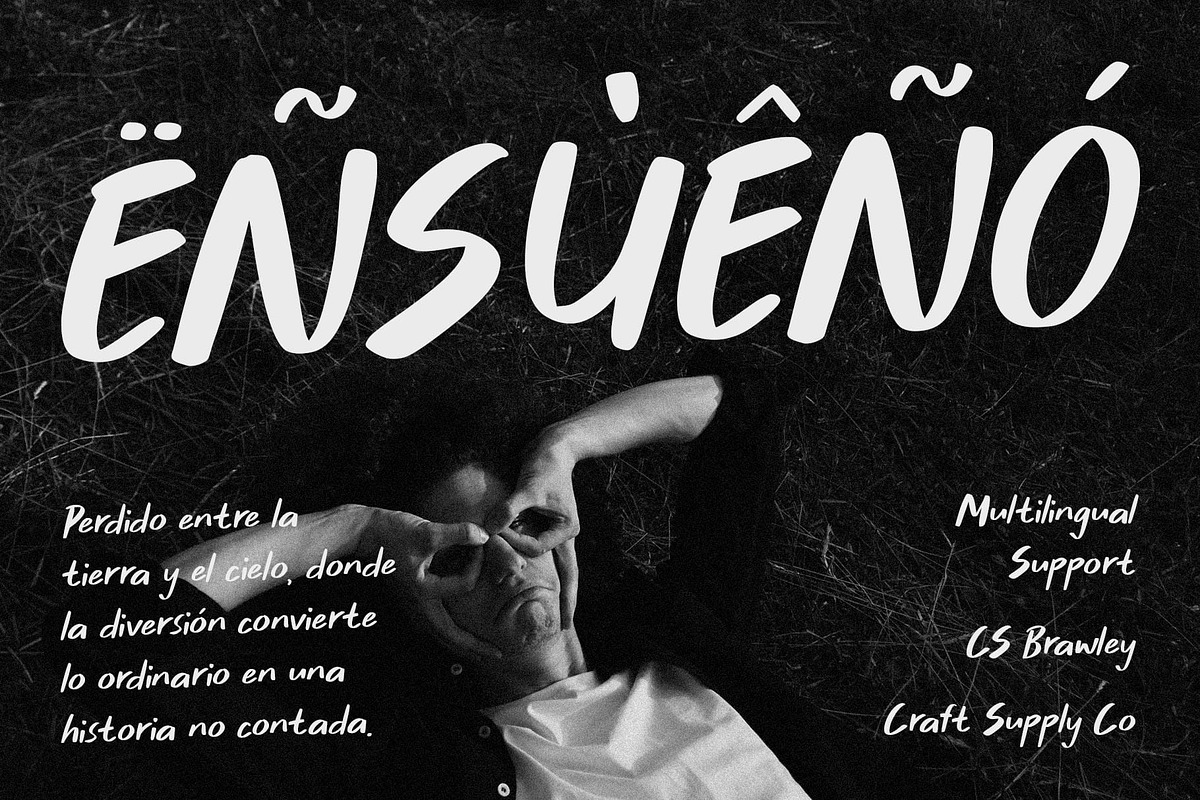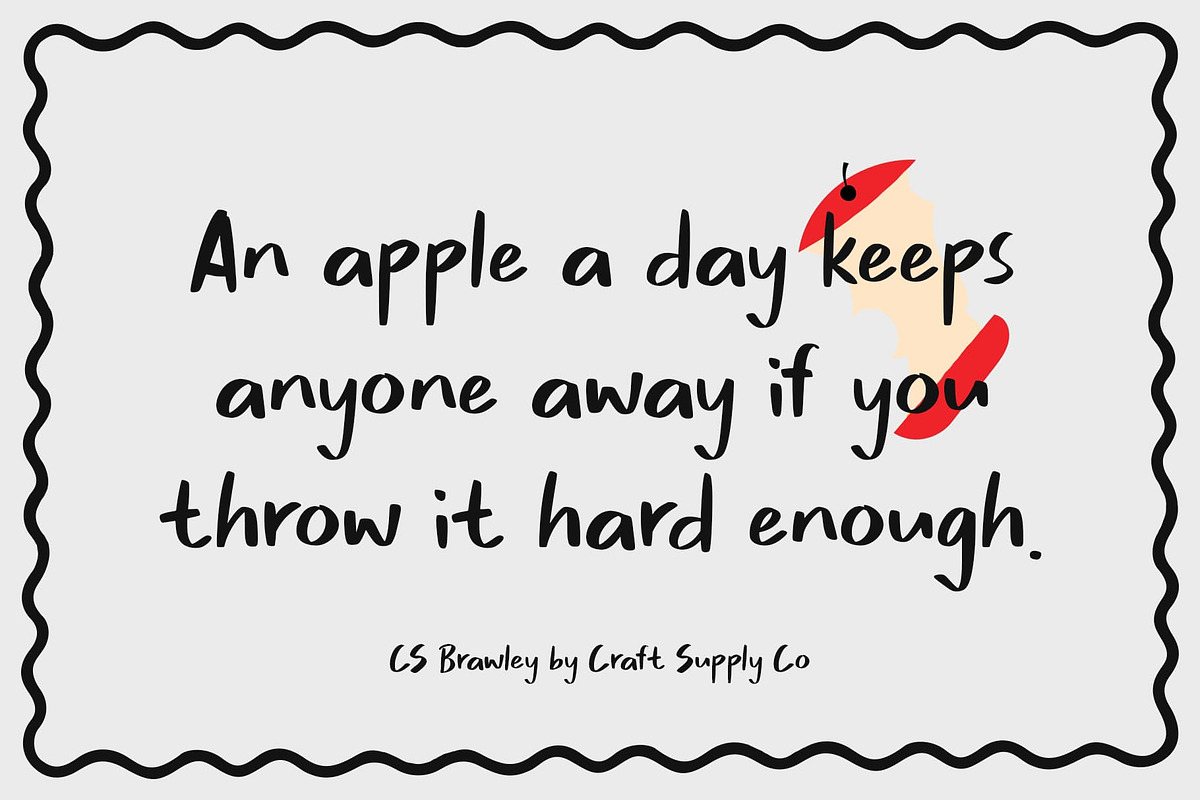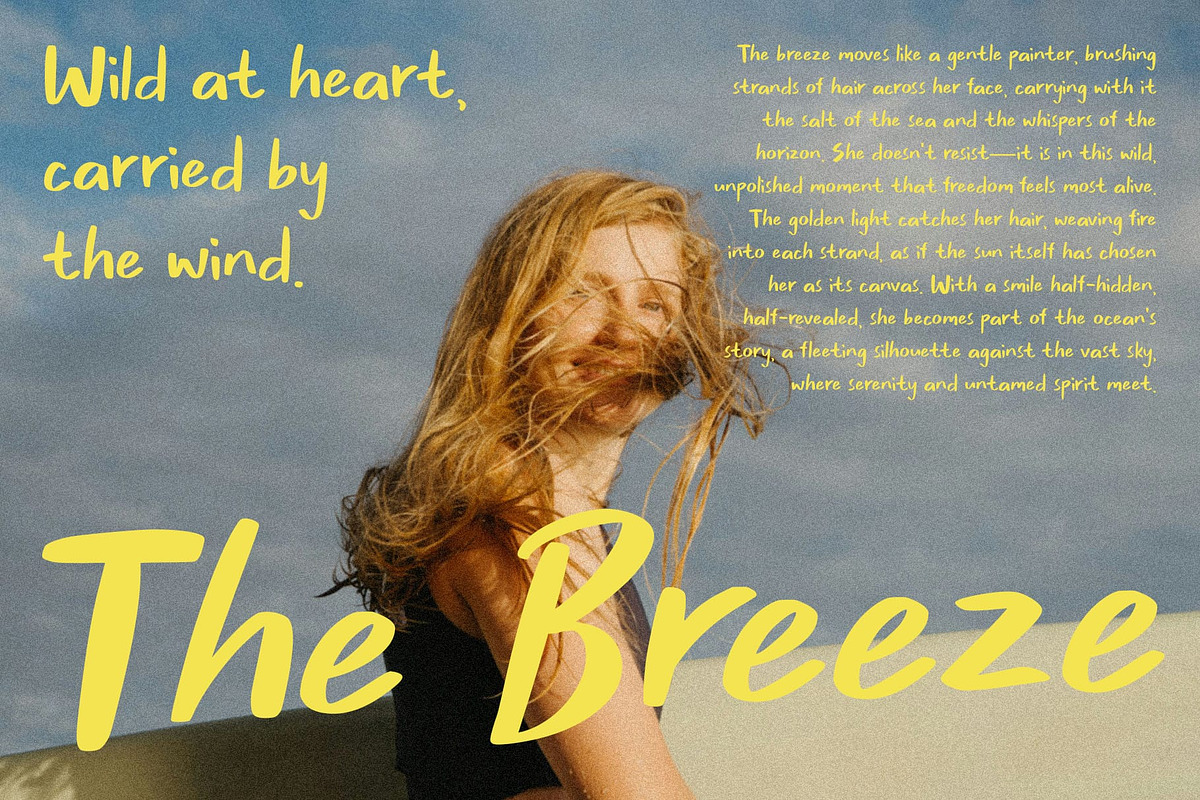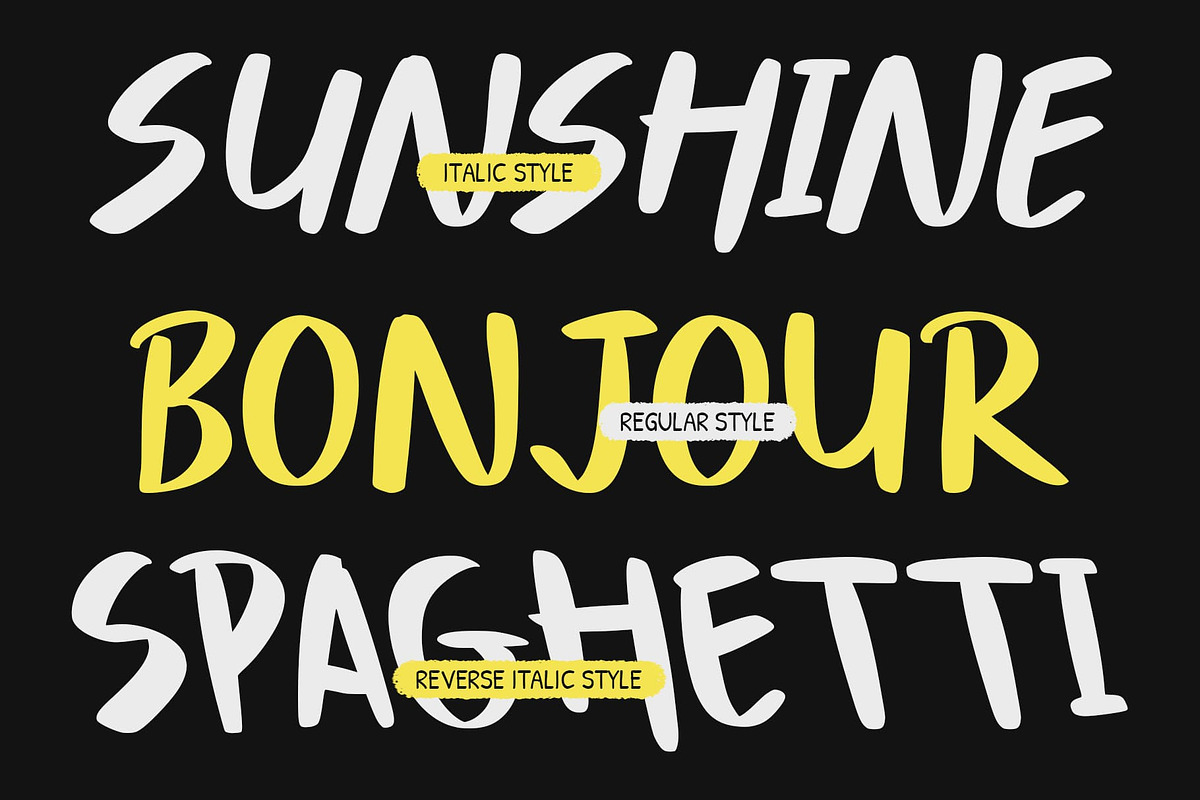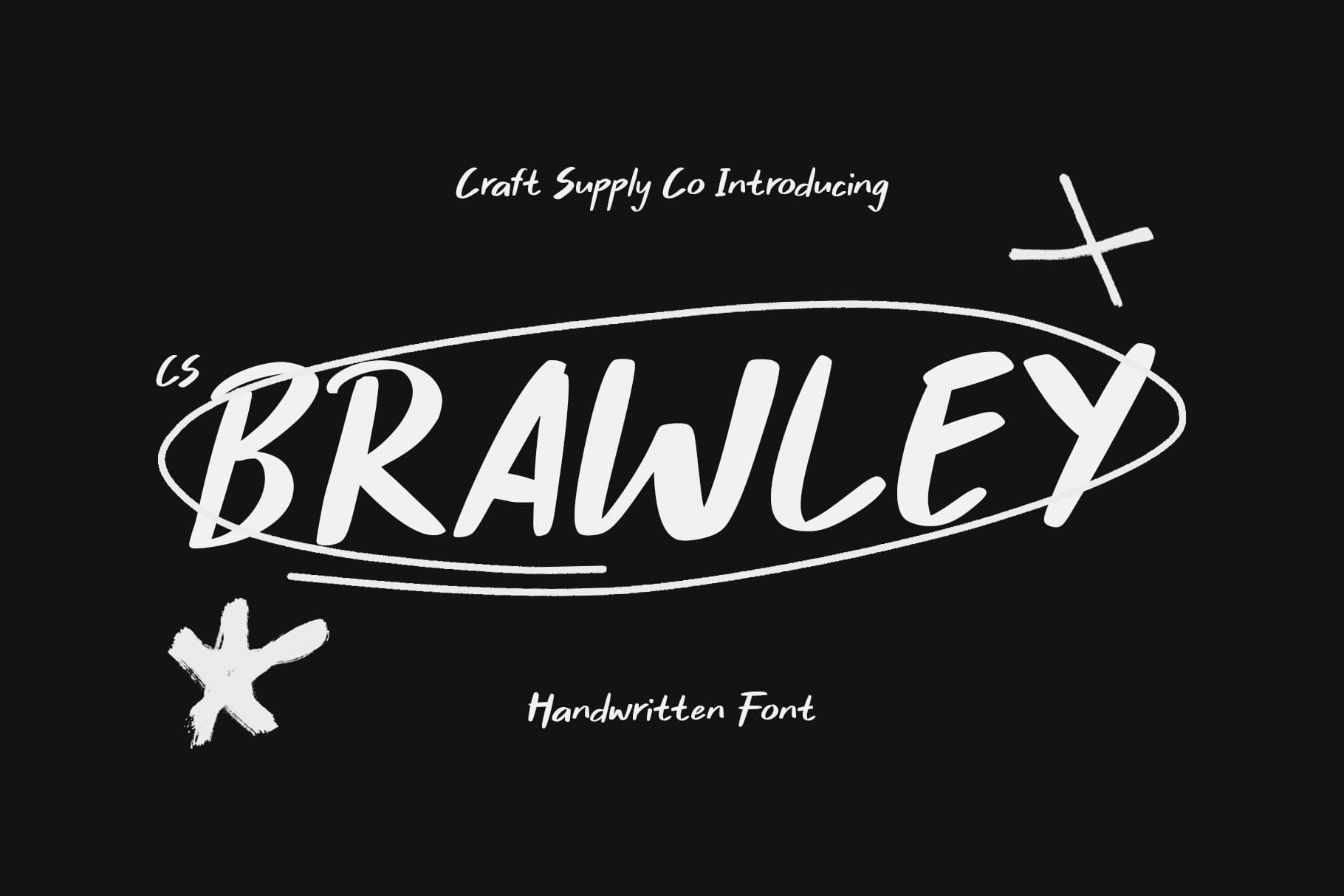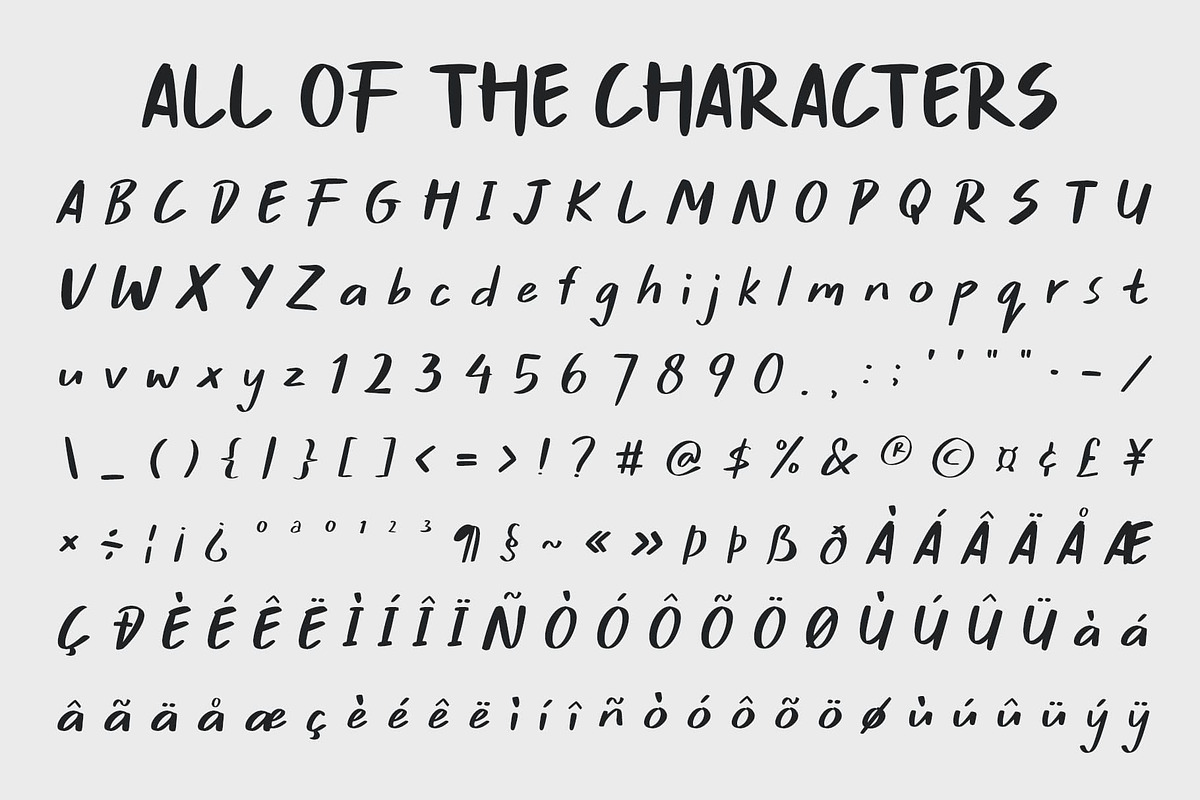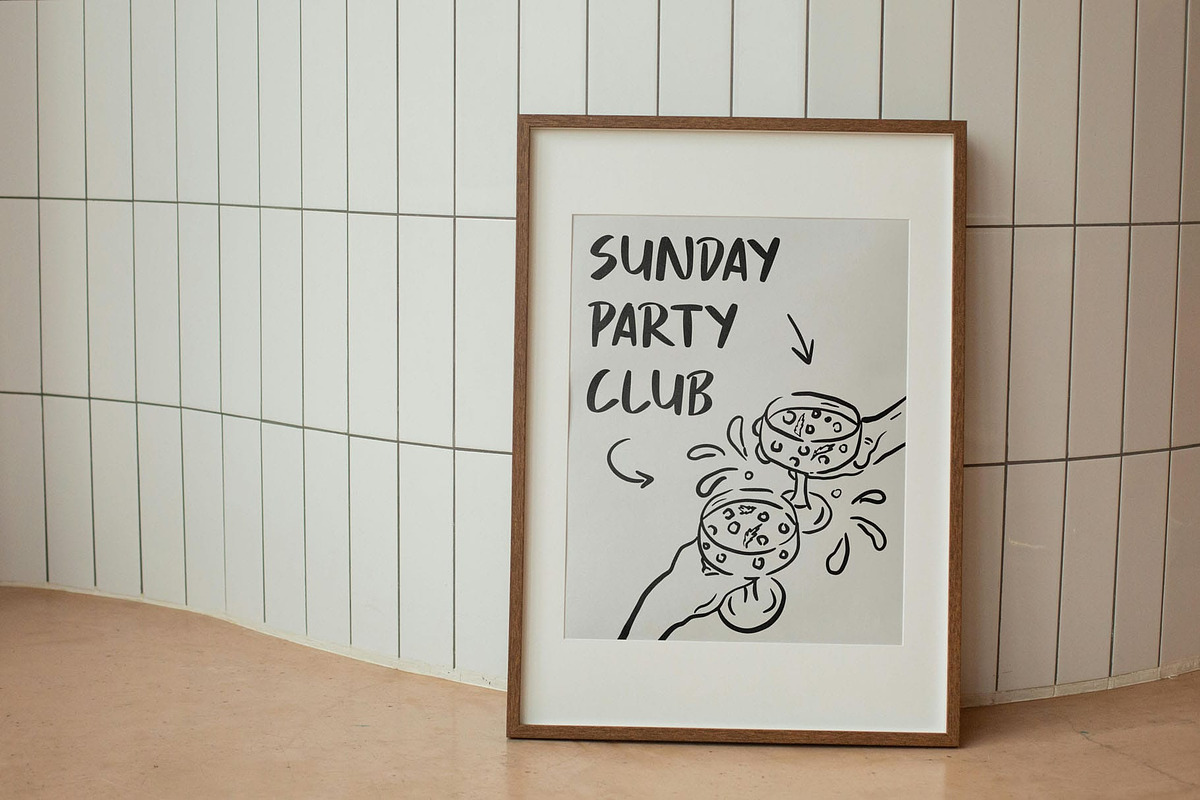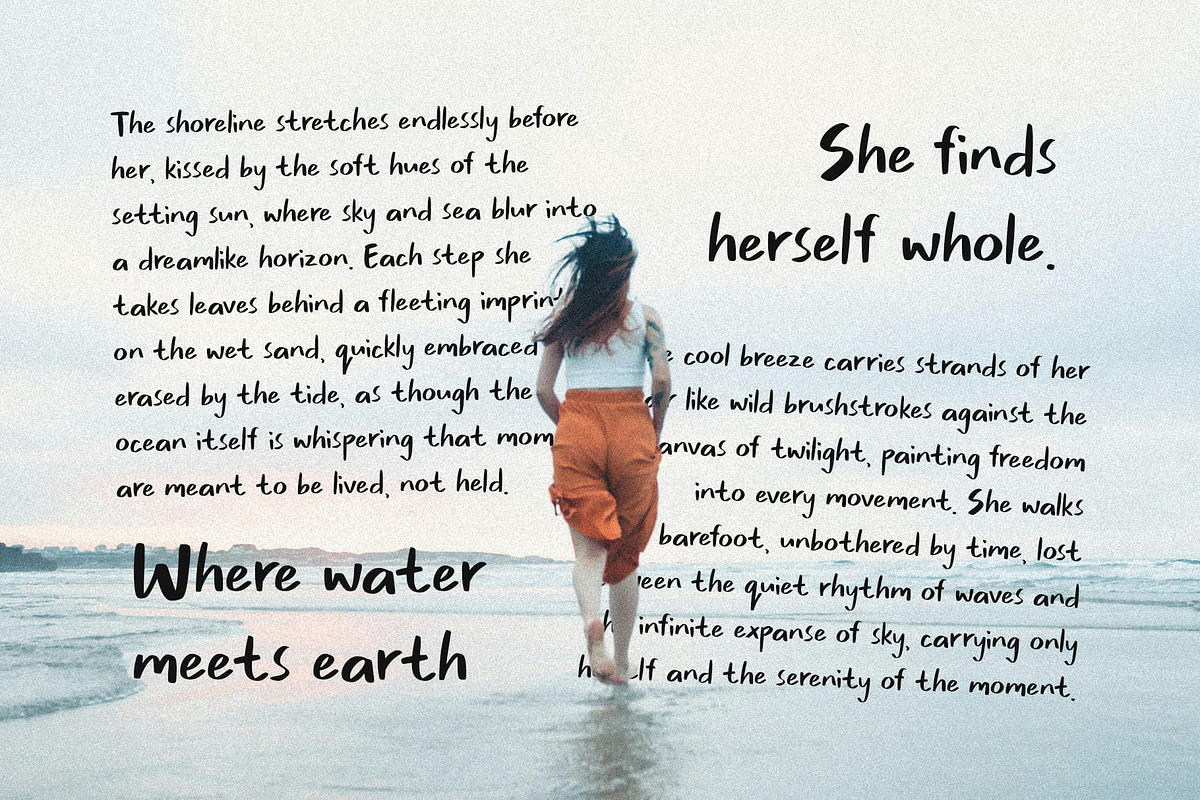
CS Brawley – Marker Font
CS Brawley: Bold Expression with a Handcrafted Touch
Marker Font with Natural Sans Serif Style This is a marker-style sans serif font that blends the clean structure of modern typography with the warmth of natural handwriting. Each stroke captures the essence of a handmade marker texture, resulting in a design that feels both polished and expressive.
Handwritten Texture for Authentic Personality Every letter in this font carries a subtle, organic texture that mirrors the imperfection of real handwriting. This handcrafted feel brings depth and character to your text, making it stand out in digital or print layouts. The natural texture enhances the visual flow, adding personality without sacrificing legibility.
Modern Simplicity Meets Creative Warmth With its sans serif foundation, this font maintains a clean, structured appearance while still feeling approachable and dynamic. It’s a versatile choice for editors, designers, and brands seeking a typeface that communicates clarity with a touch of creative spontaneity. Whether used in bold headlines or expressive logos, it adapts easily to diverse design needs.
Perfect for Branding and Creative Projects This font shines in editorials, branding, digital content, and creative layouts that call for authenticity and style. Its marker-inspired strokes add movement and energy, giving your designs a lively, handcrafted edge. With this font, you can express ideas with confidence, warmth, and an unmistakably human touch.